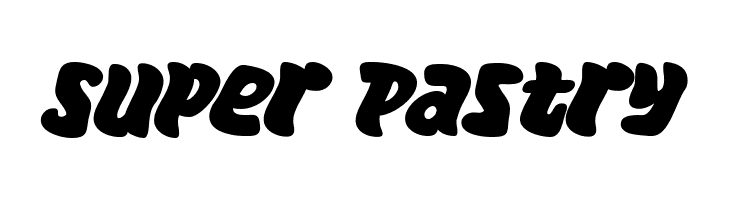
• Super Pastry 字体
( Fonts by fsuarez913 )
A bold, playful font with thick, rounded strokes and high contrast.
• Super Peace 字体
( Fonts by fsuarez913 )
A playful, bold font with rounded, bubbly characters ideal for fun and approachable designs.
• Super Peach 字体
( Fonts by fsuarez913 )
A bold, rounded font with a playful and friendly style.
• Super Peanut 字体
( Fonts by fsuarez913 )
A playful, bold font with rounded, bubbly characters.
• Super Pineapple 字体
( Fonts by fsuarez913 )
A playful, bold font with rounded, bubbly characters.
• Super Pixel 字体
A bold, pixelated font with a retro, video game-inspired aesthetic.
• Super Plants 字体
A bold, rounded font with a playful and friendly style.
• Super Playful 字体
( Fonts by fsuarez913 )
A bold, playful font with rounded, uniform strokes and a whimsical touch.
• Super Plumber Brothers 字体
( Jackster Productions - darkangelx.deviantart.com )
A bold, retro, pixelated font with a strong, blocky design.
• Super Positive 字体
A bold, playful font with exaggerated curves and a whimsical style.